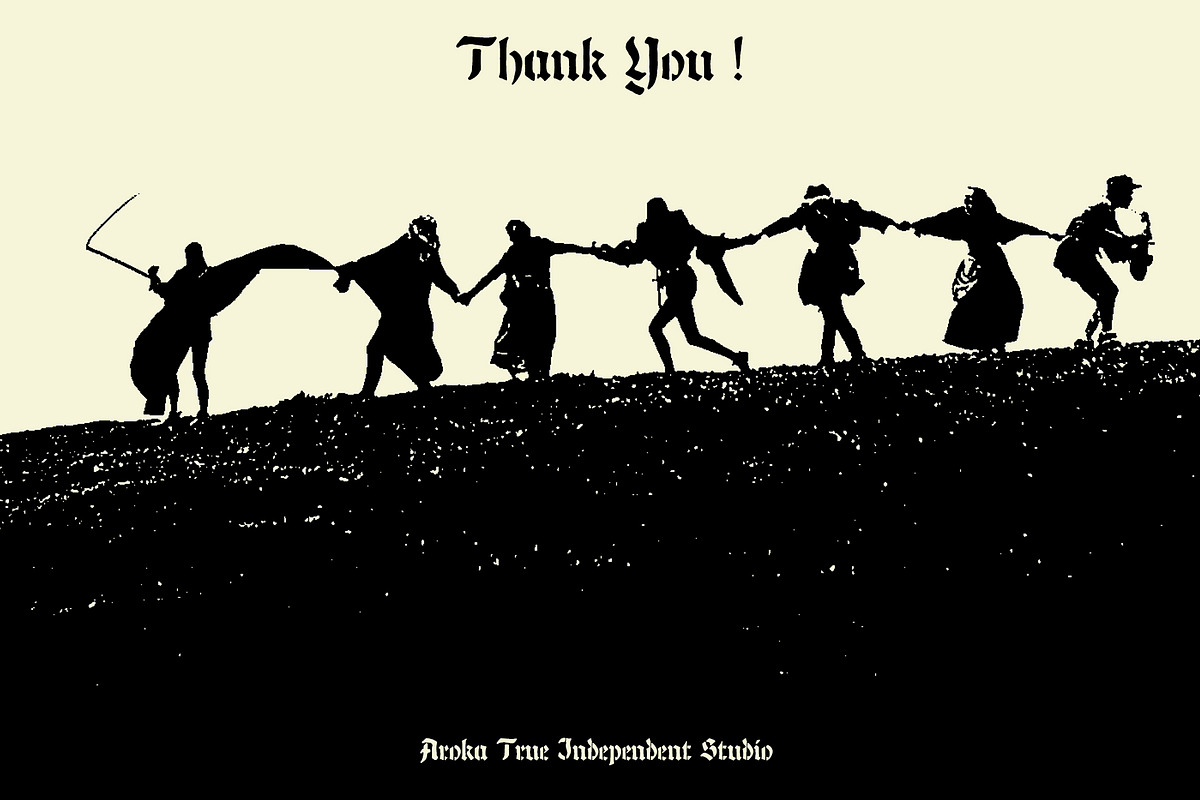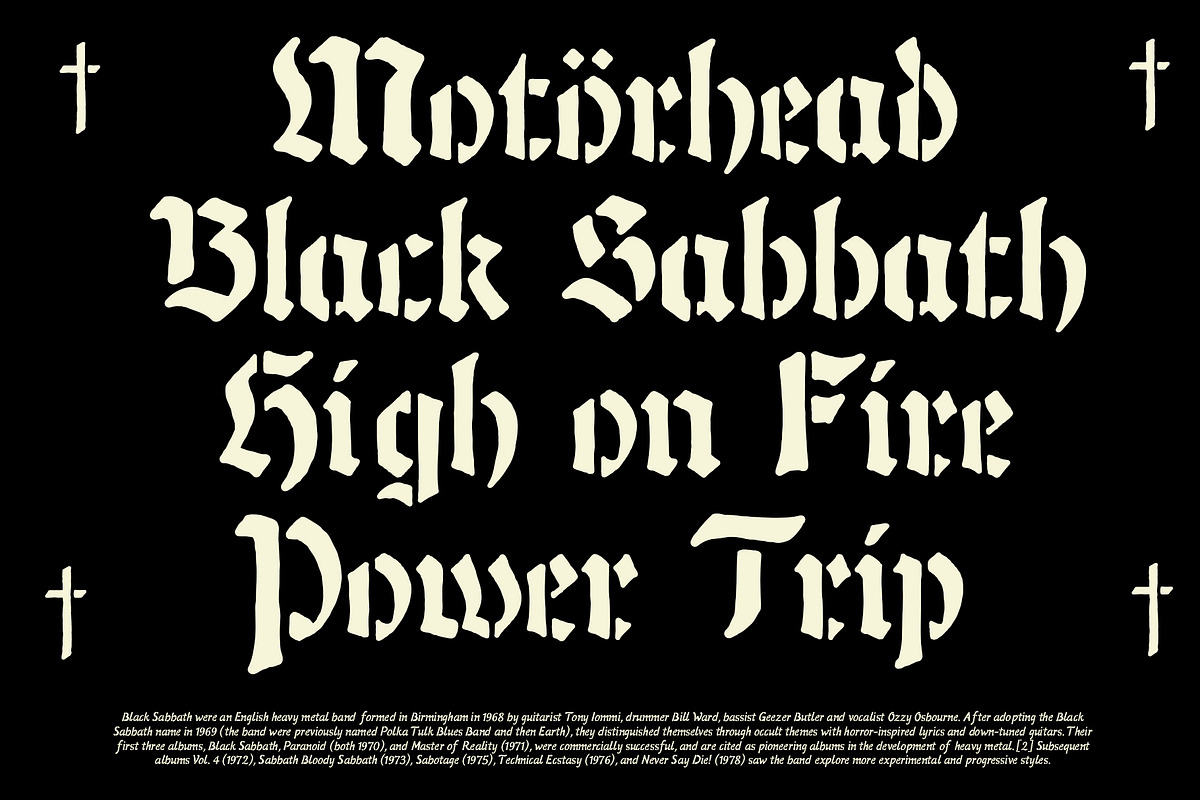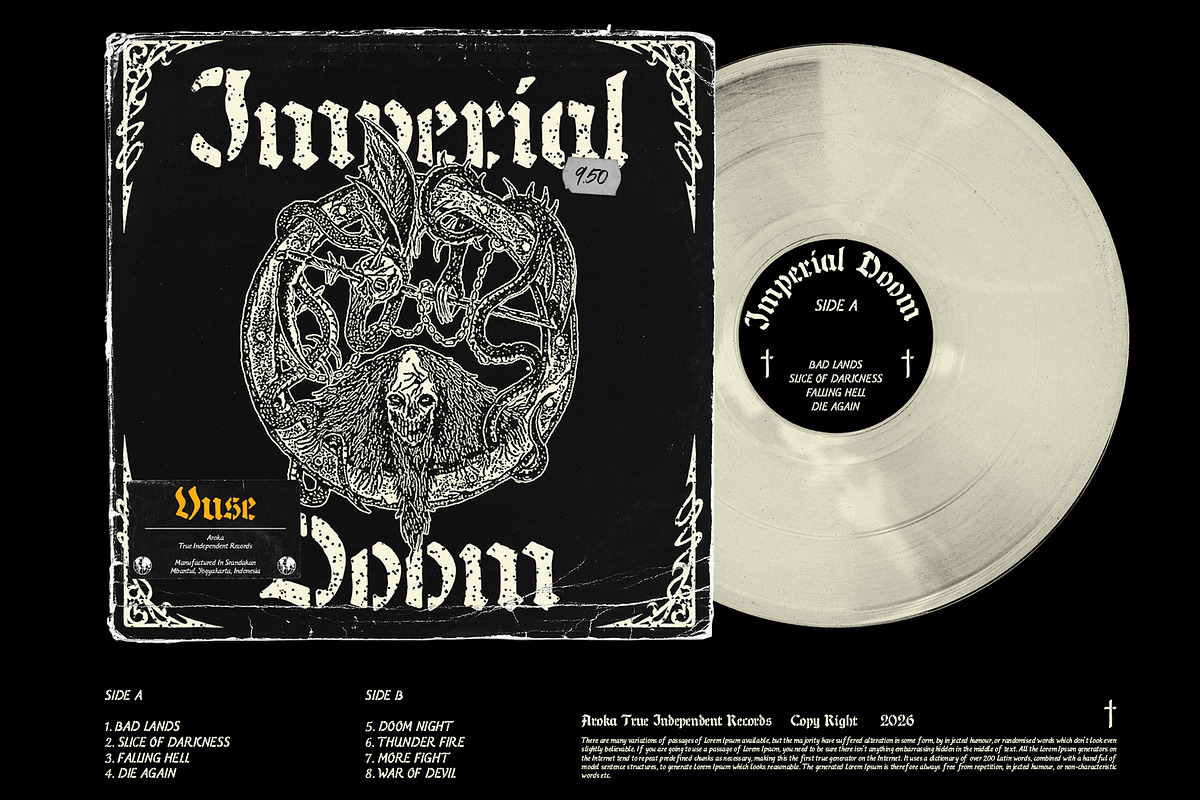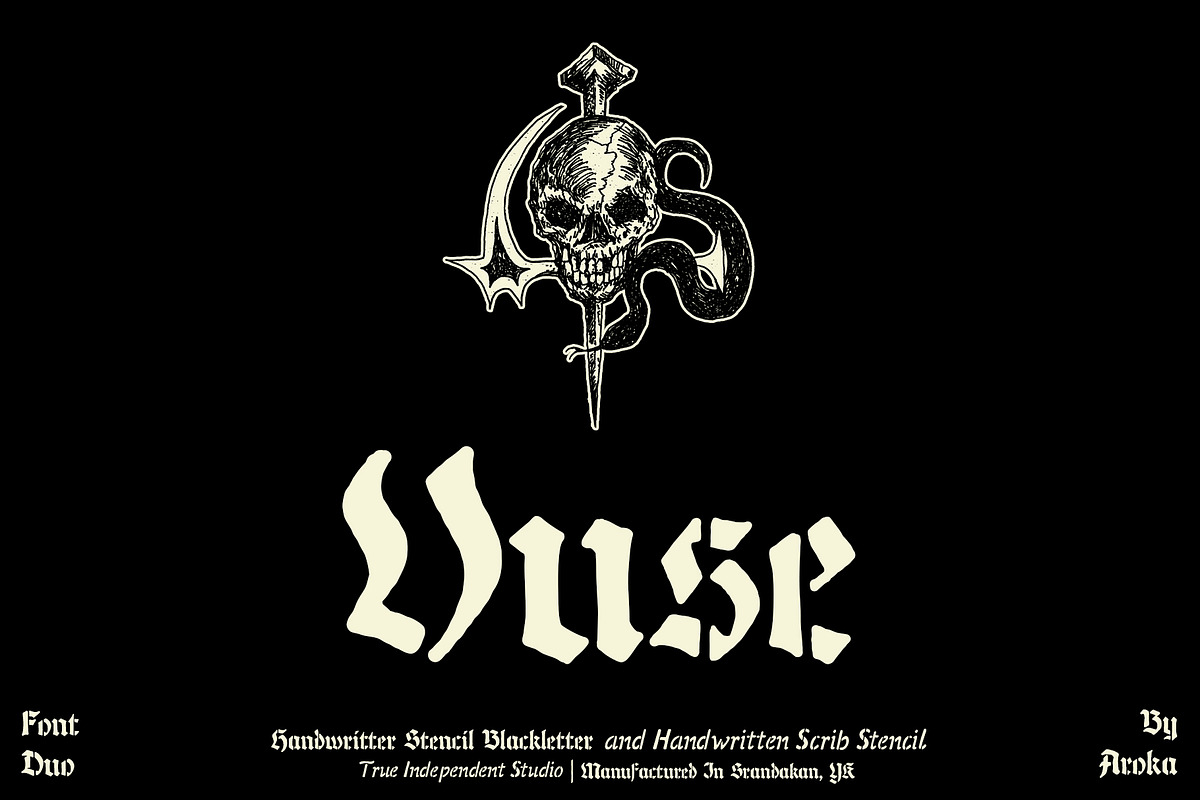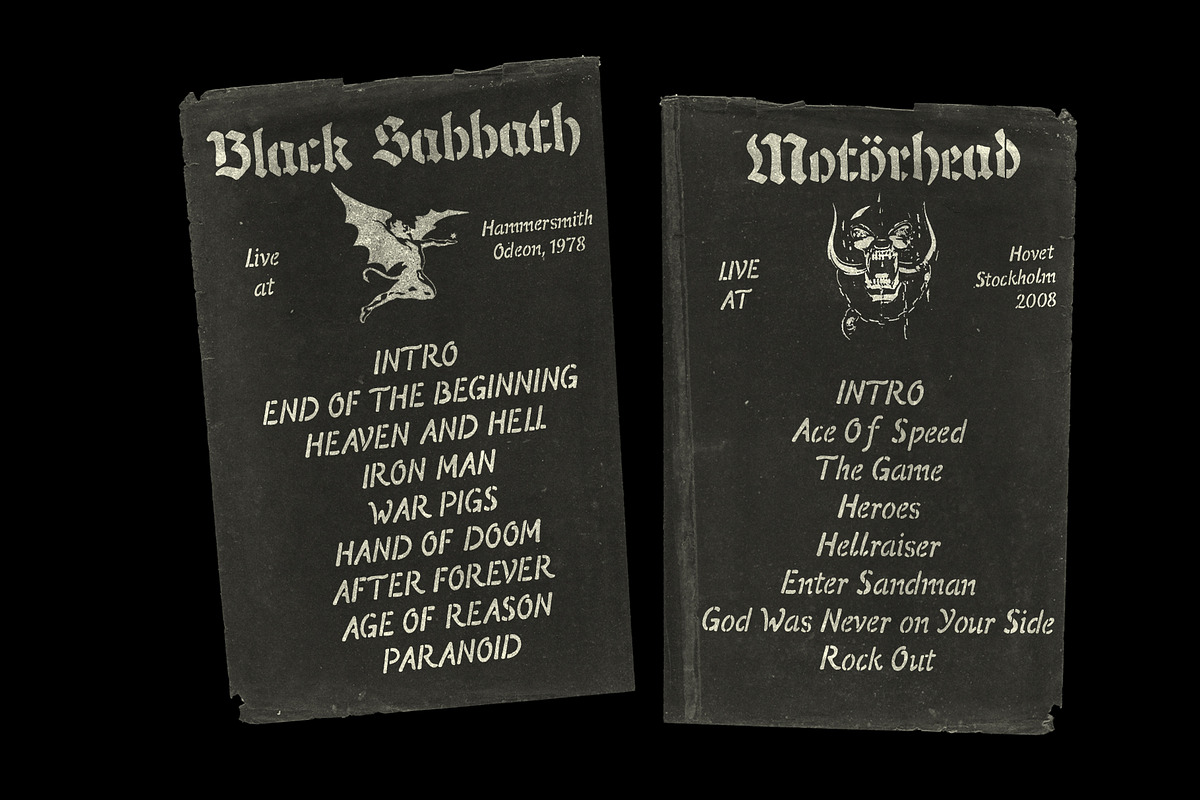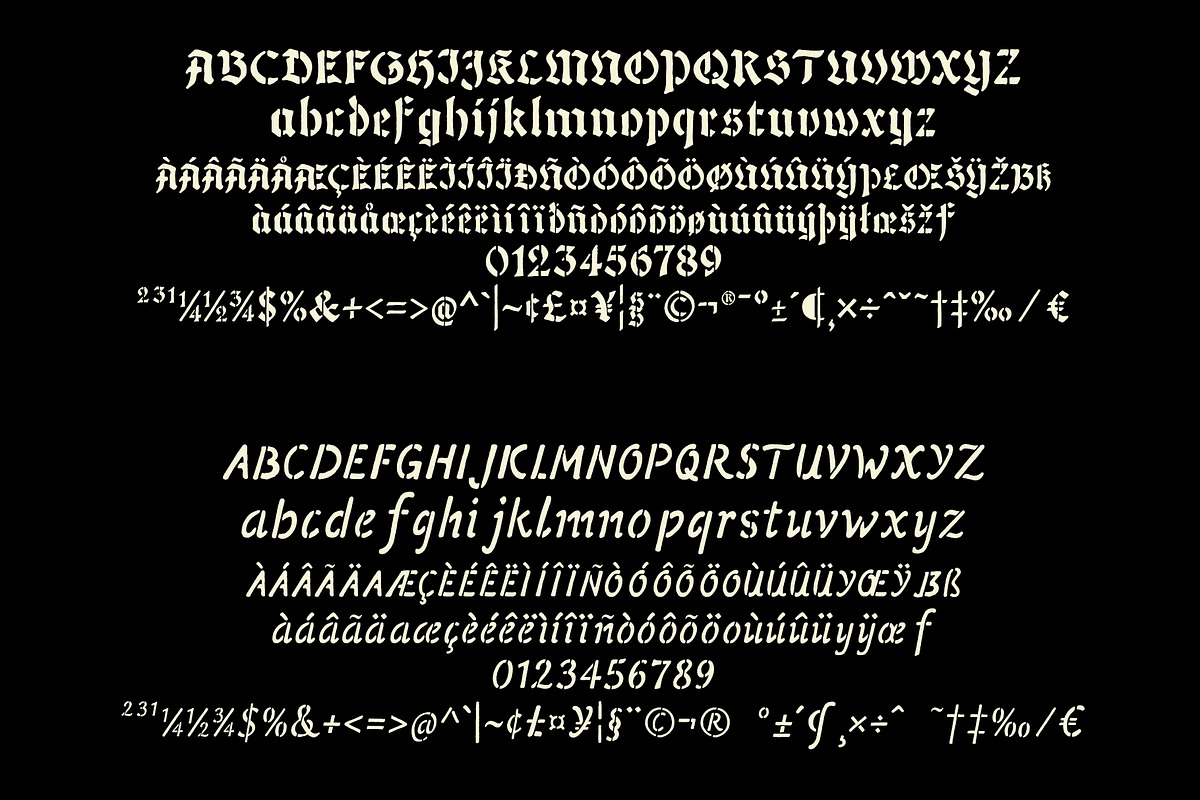
Vuse Blackletter Stencil
Inspired by underground gigs, bands with loud distortion and a dark, horror feel! Plus, the graphic style is kept as simple as possible, and the independent record label features distinctive graphics!